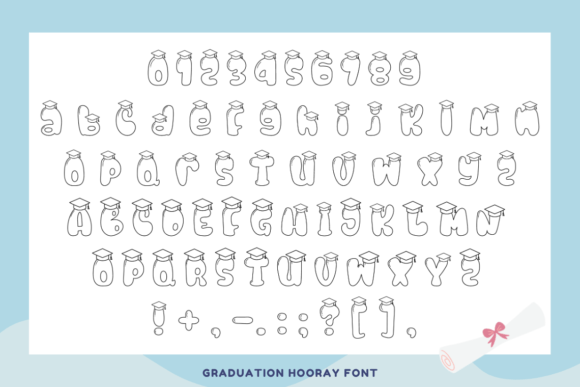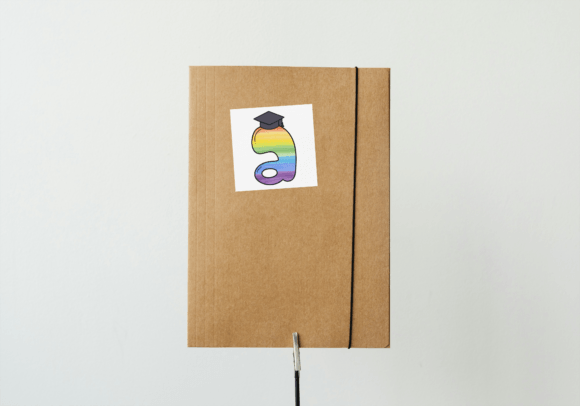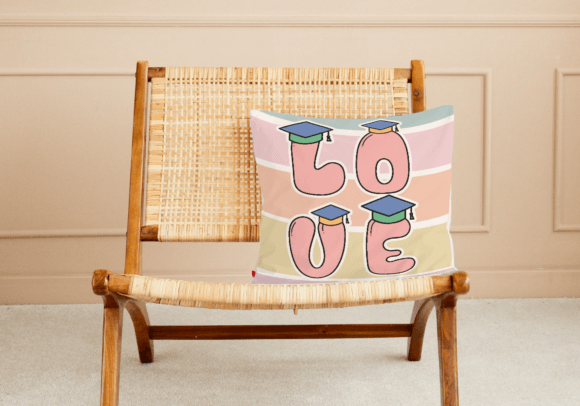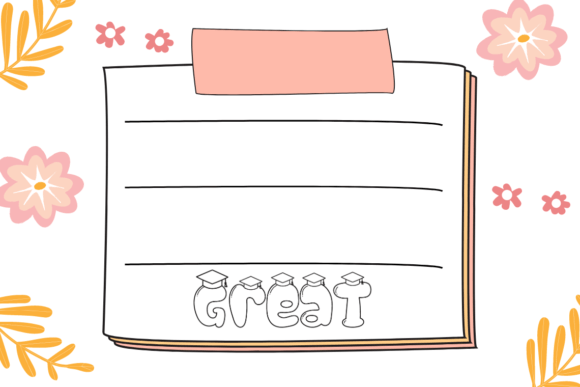
Graduation Hooray Font: The Perfect Addition to Your Celebratory Designs
Are you looking for a font that will add a touch of excitement and joy to your graduation-themed designs, school projects, or kids’ celebrations? Look no further than Graduation Hooray Font! This charming decorative typeface is specifically designed to bring a playful and festive feel to your creations, making them stand out from the rest.
What is Graduation Hooray Font?
Graduation Hooray Font is a unique and delightful font that features playful alphabet graphics, perfect for creating celebratory materials such as invitations, posters, and more. Its charming design is sure to bring a smile to anyone’s face, making it an ideal choice for graduation-themed designs, school projects, and kids’ parties.
Key Features of Graduation Hooray Font
- Playful Alphabet Graphics: Each letter of the alphabet is designed with a playful and festive touch, making it perfect for celebratory designs.
- Decorative Typeface: Graduation Hooray Font is a decorative typeface that adds a touch of elegance and sophistication to your designs.
- Kids’ Celebrations: This font is perfect for kids’ parties, graduations, and other celebrations, making it a great addition to your design collection.
Uses for Graduation Hooray Font
Graduation Hooray Font is a versatile font that can be used in a variety of design projects, including:
- Graduation Invitations: Create custom graduation invitations that will make your graduate feel special.
- School Projects: Add a touch of excitement to school projects, such as posters, presentations, and reports.
- Kids’ Party Decorations: Use Graduation Hooray Font to create fun and festive decorations for kids’ parties, such as banners, garlands, and more.
- Celebratory Materials: Create custom celebratory materials, such as posters, flyers, and brochures, that will make your event stand out.
Why Choose Graduation Hooray Font?
There are many reasons why Graduation Hooray Font is the perfect choice for your celebratory designs. Here are just a few:
- Unique Design: Graduation Hooray Font features a unique and playful design that will make your designs stand out.
- Versatile: Graduation Hooray Font can be used in a variety of design projects, from graduation invitations to kids’ party decorations.
- Fun and Festive: This font is perfect for creating fun and festive designs that will bring joy to your audience.
Tips for Using Graduation Hooray Font
Here are a few tips for using Graduation Hooray Font in your designs:
- Experiment with Colors: Graduation Hooray Font looks great in a variety of colors, so don’t be afraid to experiment and find the perfect color scheme for your design.
- Mix and Match: Mix and match Graduation Hooray Font with other fonts to create a unique and interesting design.
- Add Graphics: Add graphics and images to your design to make it more visually appealing.
- Keep it Simple: Don’t overcomplicate your design. Keep it simple and let Graduation Hooray Font be the star of the show.
Graduation Hooray Font is a charming decorative typeface that is perfect for graduation-themed designs, school projects, and kids’ celebrations. With its playful alphabet graphics and festive design, it’s sure to bring joy to your designs. Whether you’re a designer or crafter, Graduation Hooray Font is a great addition to your collection. So why wait? Download Graduation Hooray Font today and start creating fun and festive designs that will make your audience smile!